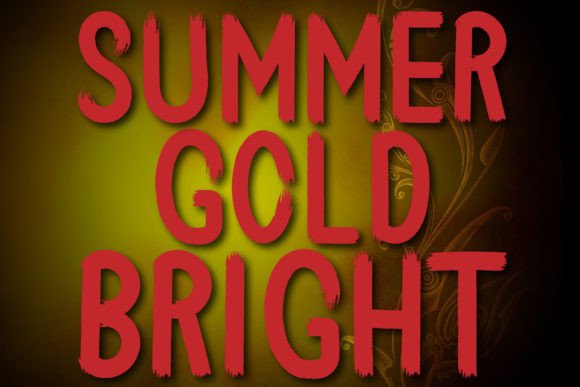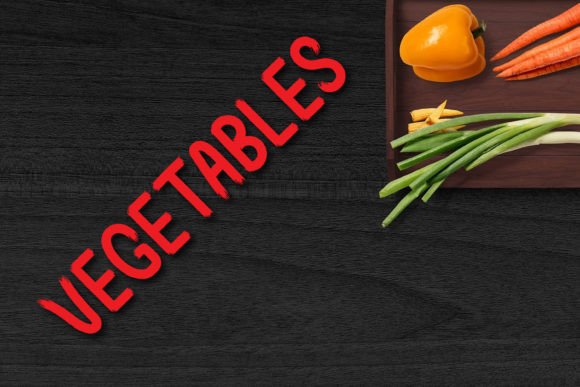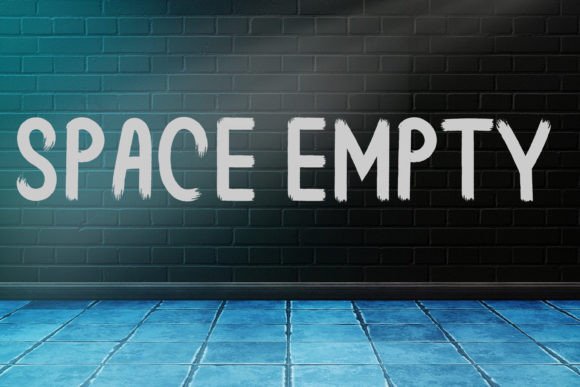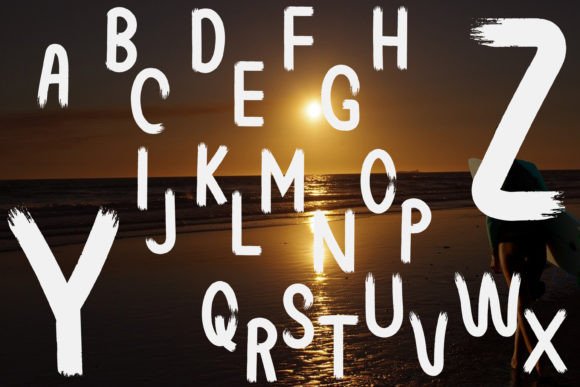
The Brushes Font: A Quirky and Fun Addition to Your Design Toolbox
I’ll never forget the time I was working on a project for a client who wanted a bold, eye-catching font to match their brand’s playful personality. I spent hours scouring the internet for the perfect font, but nothing seemed quite right. That was until I stumbled upon the Brushes font. With its quirky and fun vibe, it was love at first sight! In this article, I’ll share my experience with the Brushes font, its features, and how to make the most of it in your designs.
A Personal Review of Brushes Font
- ✨ Bold and attention-grabbing: The Brushes font is perfect for making a statement in your designs. Its bold and expressive strokes are sure to turn heads.
- ✅ Quirky and fun: This font is not your average, run-of-the-mill font. Its quirky and playful vibe makes it perfect for designs that need a bit of personality.
- 🎨 Versatile: The Brushes font can be used in a wide range of applications, from posters and flyers to social media graphics and branding materials.
While the Brushes font is an amazing addition to any design toolbox, it’s not without its quirks. Here are a few things to keep in mind:
- 🤔 Legibility at small sizes: While the Brushes font is stunning at larger sizes, it can be a bit tricky to read at smaller sizes. Be sure to test it out at different sizes to ensure it’s legible for your specific use case.
- ⚠️ Limited use cases for formal designs: The Brushes font is playful and fun, but it may not be the best choice for formal designs or applications where a more professional tone is required.
The Story Behind Brushes Font
The Brushes font was designed by a team of creative typographers who wanted to create a bold, expressive font that would add a touch of personality to any design. Inspired by traditional brush lettering, the Brushes font features quirky strokes and swashes that give it a unique, hand-painted look.
Q: What is the Brushes font?
A: The Brushes font is a bold, expressive font that’s perfect for adding a touch of personality to your designs. Its quirky strokes and swashes make it a great choice for designs that need a playful, attention-grabbing look.
Q: Is the Brushes font suitable for body text?
A: While the Brushes font is stunning at larger sizes, it’s not ideal for body text. Its bold strokes and quirky swashes make it better suited for headlines, titles, and other display text.